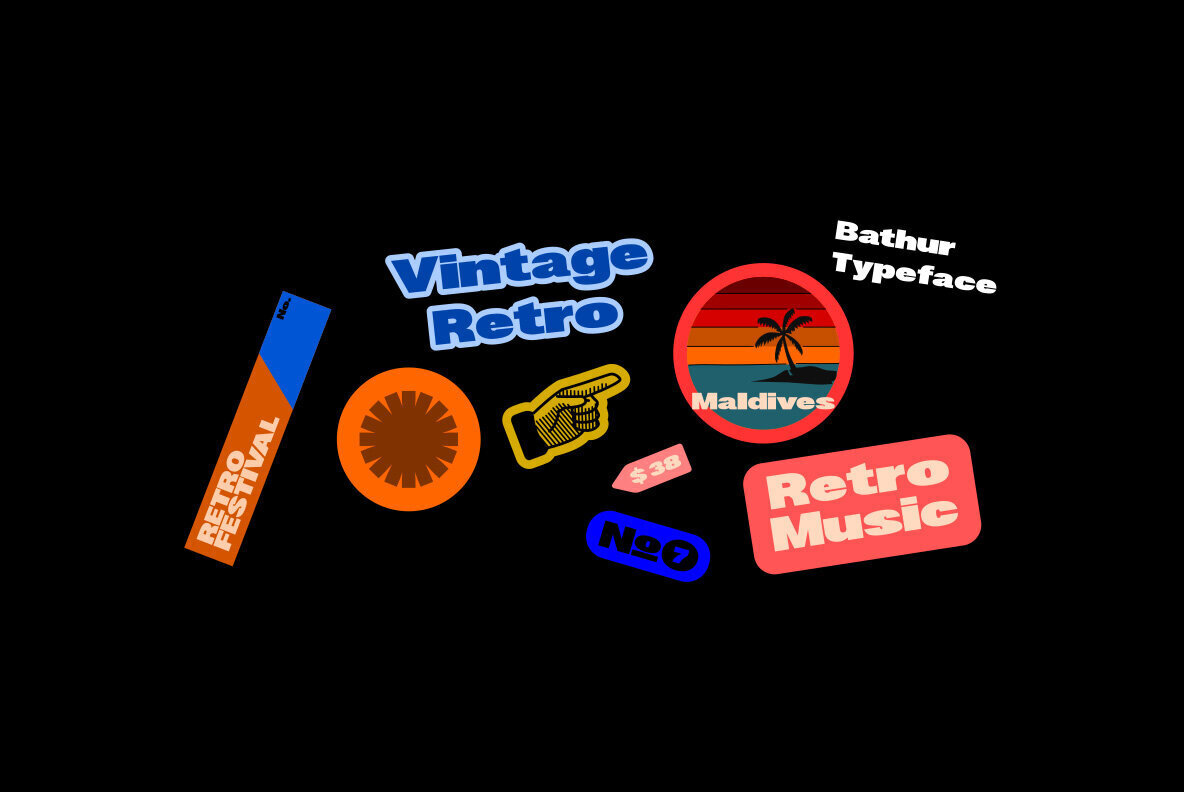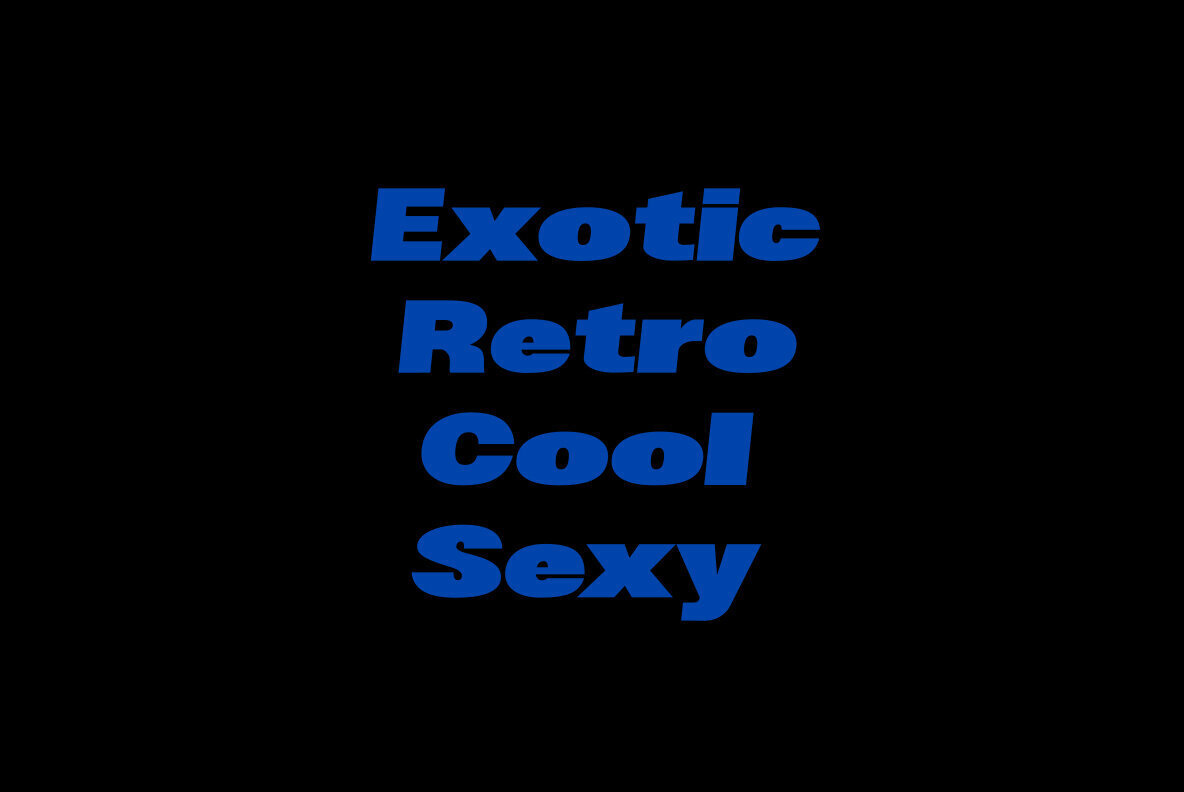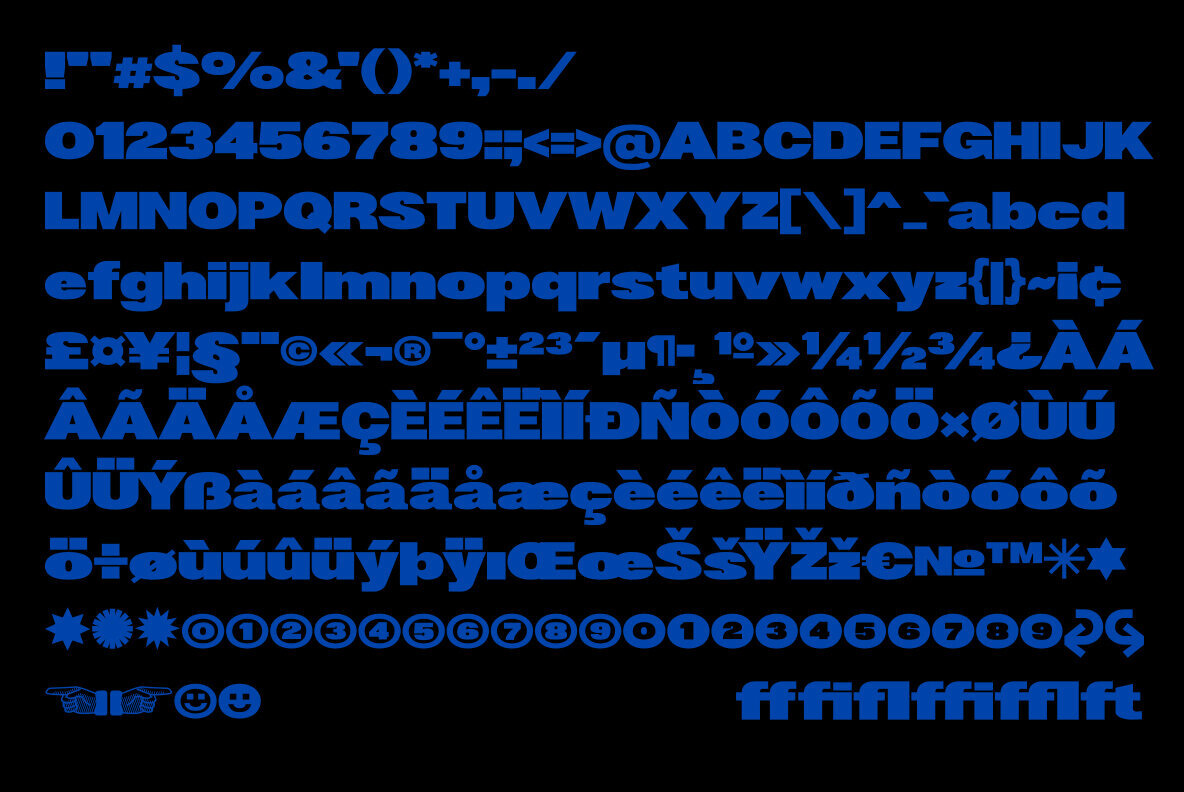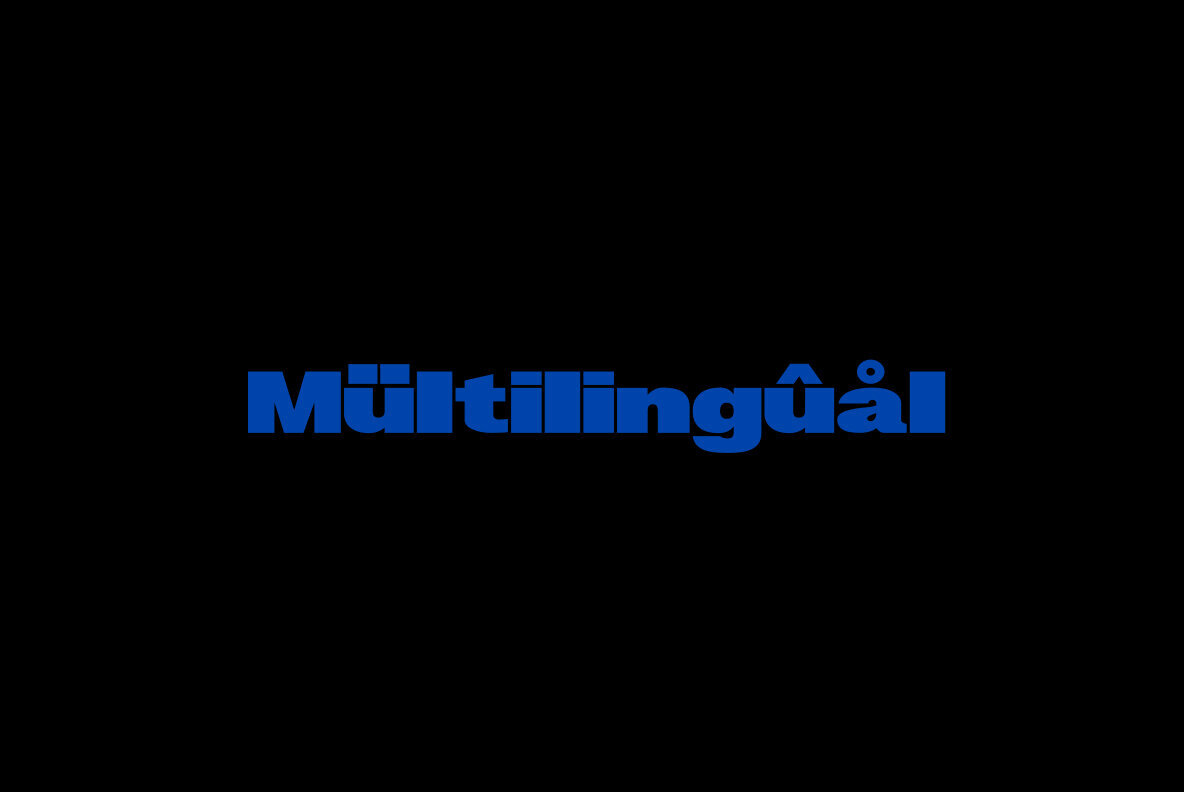
Bathur Font
Eye-catching and authentic, Bathur font is perfect for designs such as posters or stickers. The wide size ensures that it will add value to any project where you want an edgy look with a retro feel!
Making a font I always pay attention to the quality and value of the font to create the best font. For me, fonts not only function as visual communication, but also as a form of expression that expresses the feelings that the creator of the font wants to convey. and my principle is to always prioritize quality...